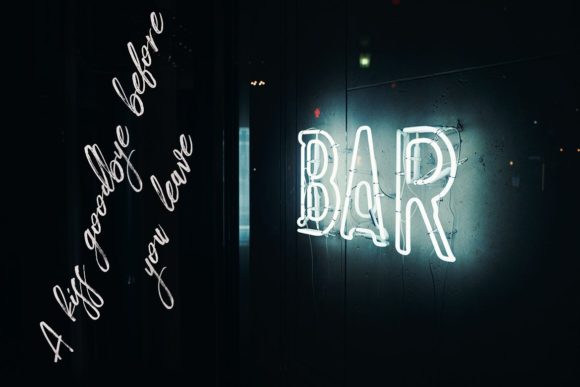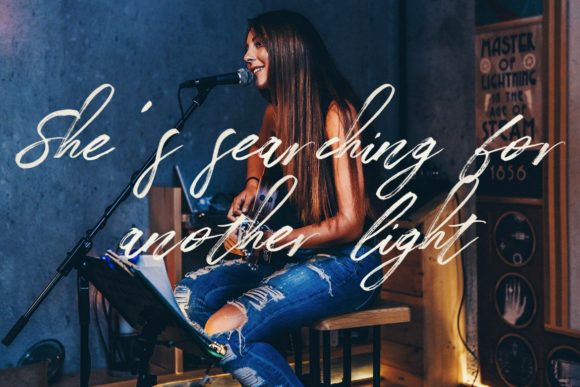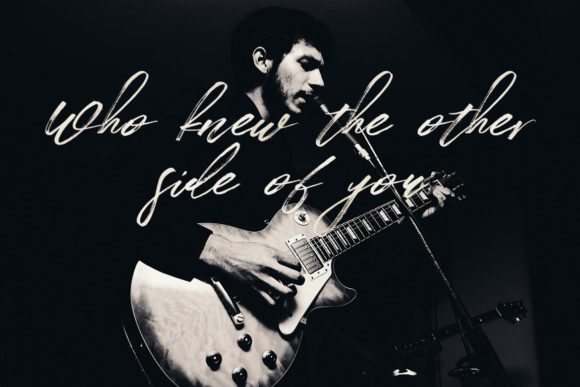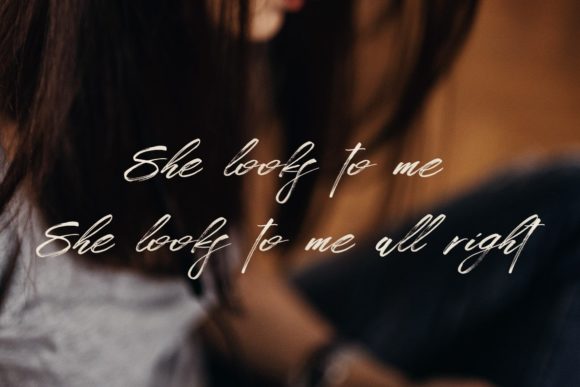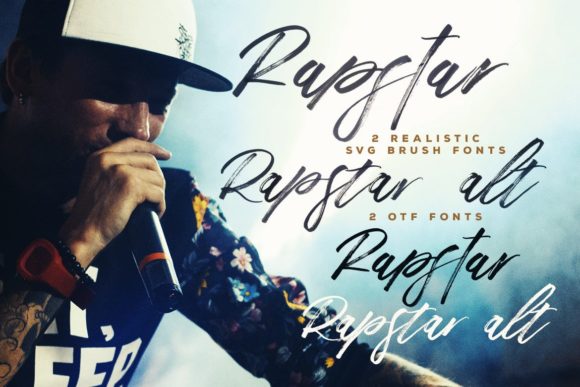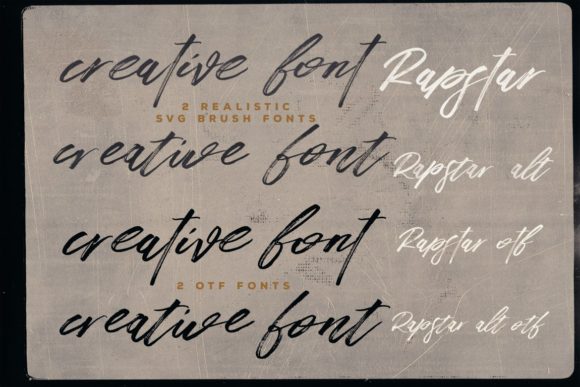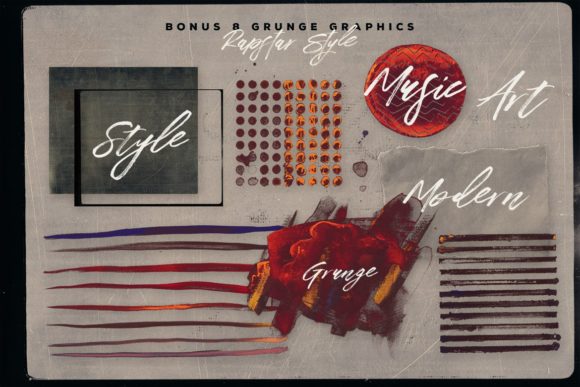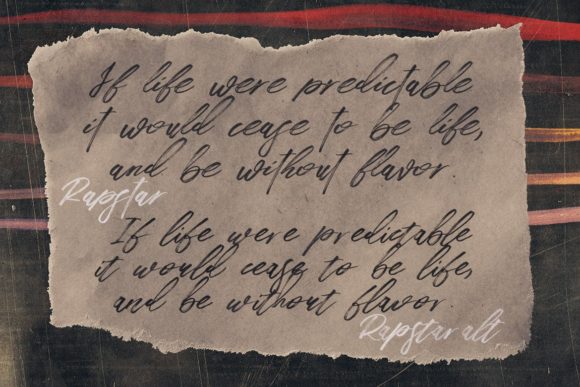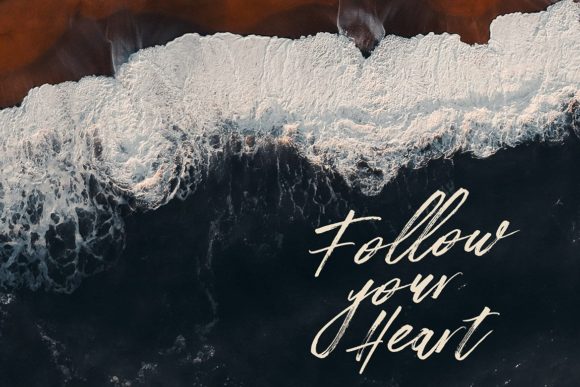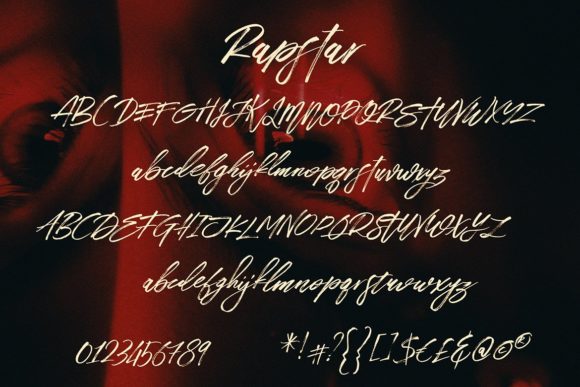
Rapstar Font
About Rapstar Font
Rapstar is a bold and charming handwritten font with incredible swashes. It will add a dynamic feel to any design project!